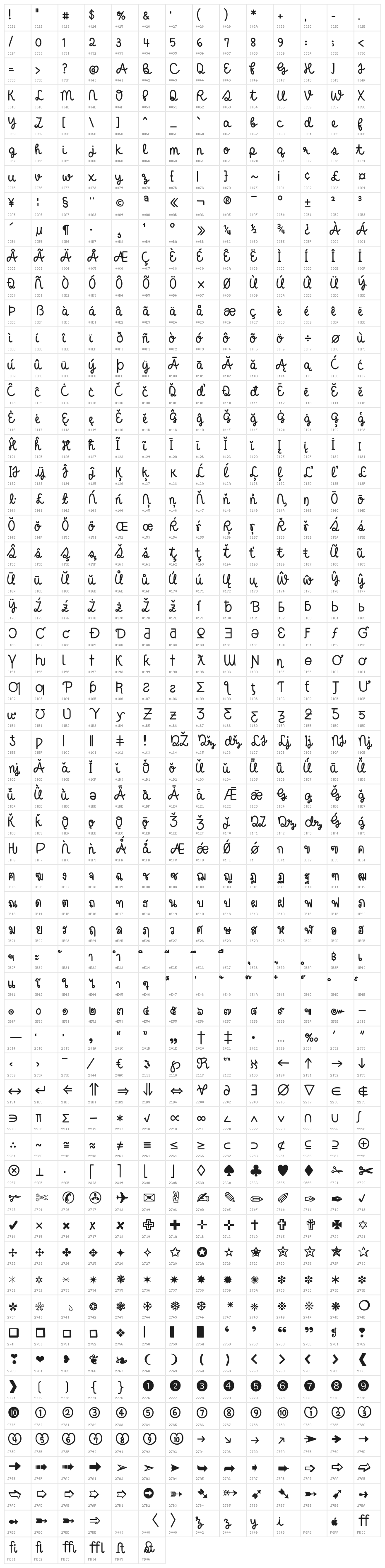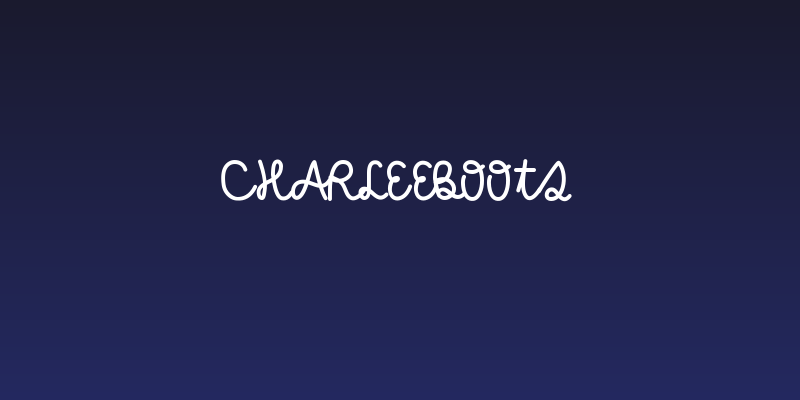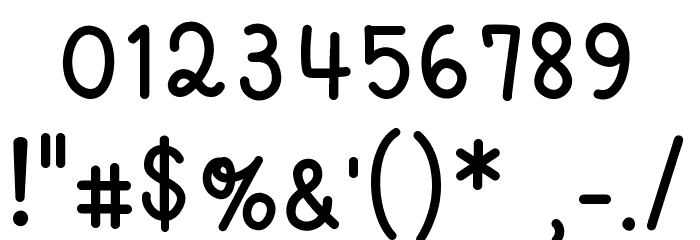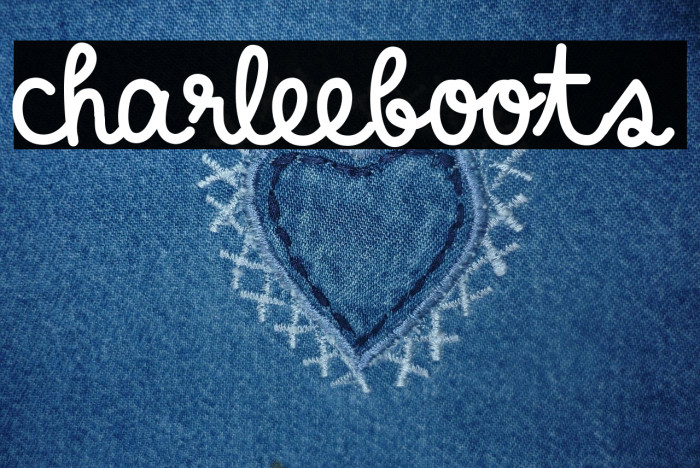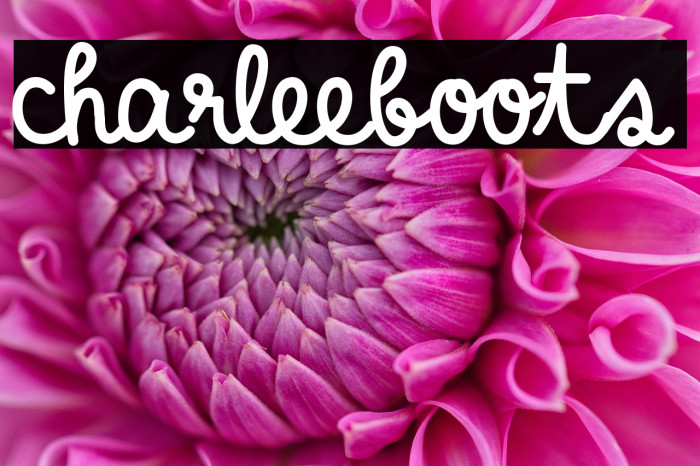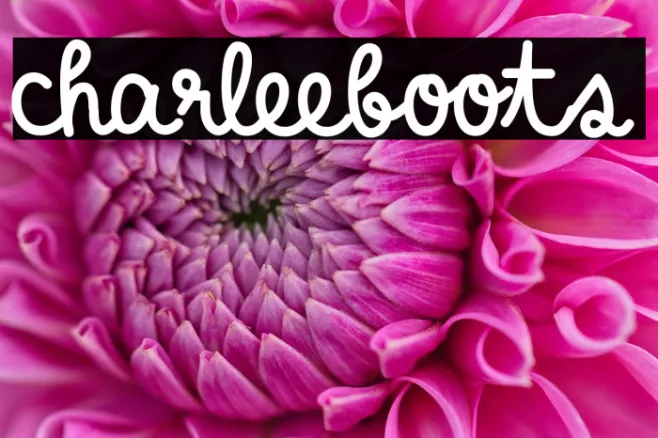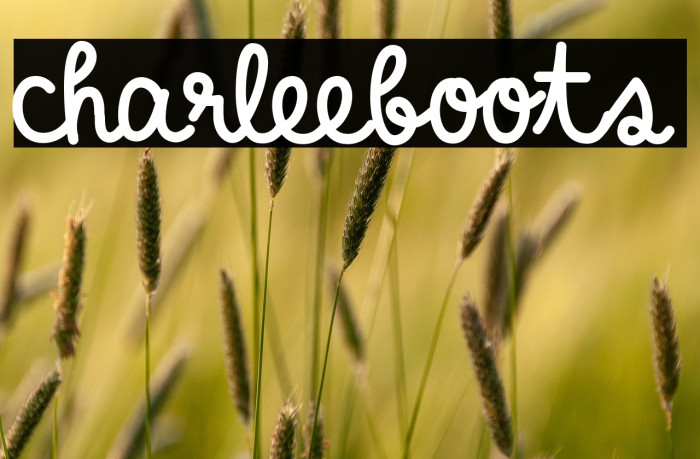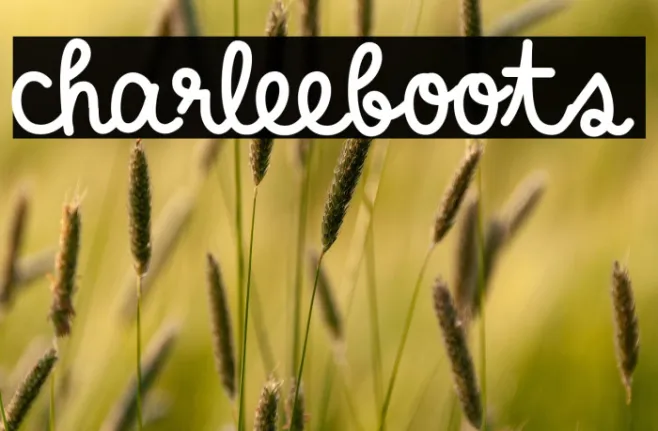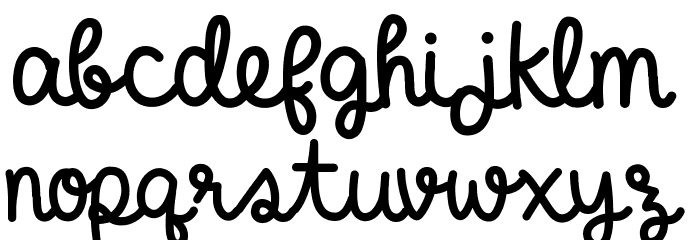
charleeboots Font
charleeboots Description
This playful and whimsical font features a handwritten style with smooth, flowing curves and a casual, friendly appearance. The letters are interconnected, giving it a cohesive and continuous look, reminiscent of cursive handwriting. The strokes are consistent in thickness, providing a uniform and balanced aesthetic. The font includes both uppercase and lowercase letters, numbers, and a variety of special characters, making it versatile for different uses. Its informal and approachable style makes it suitable for creative projects that require a personal touch.